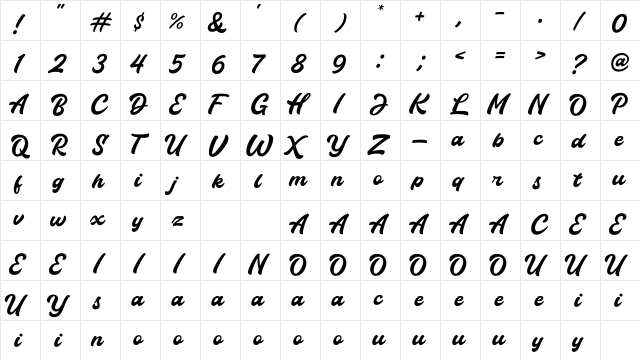
Thunder Demo Regular
Regular · Iklaz Studio Salman Mashudi ·
Foundry Iklaz Studio
FoundryIklaz Studio
DesignerSalman Mashudi
Design Context for Thunder Demo Typeface
Thunder Demo is a composed and adaptable typeface that performs quietly and consistently across a wide range of design contexts.